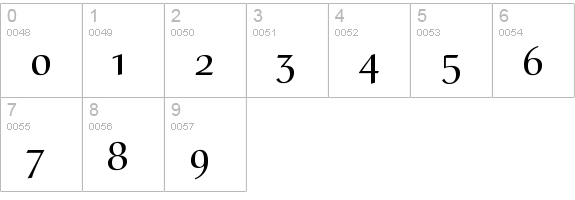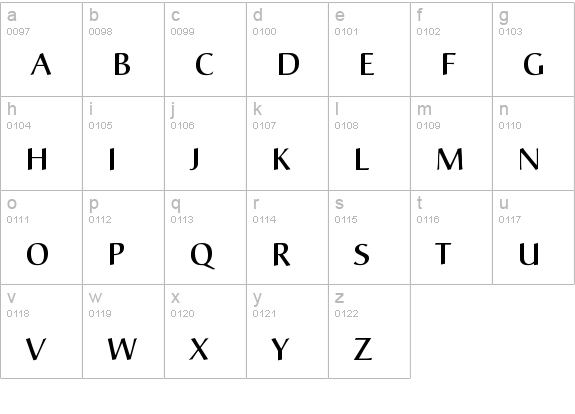
Christiana Expert BQ Regular is the standard, neutral variant in the Christiana typeface family \xE2\x80\x94 well suited to general body text, paragraphs, and standard typographic work.
Christiana Expert BQ Regular font is a classic and elegant typeface perfect for professional and formal designs. With its clean lines and timeless appeal, this font exudes sophistication and refinement. The Christiana Expert BQ Regular font is versatile and can be used for a variety of projects, from business documents to invitations and advertisements. The best part is that this font is available for free download at FontsMarket.com. You can easily access and use this high-quality typeface in your projects without any cost. Don't miss out on the opportunity to enhance your designs with the Christiana Expert BQ Regular font, freely available for download now.